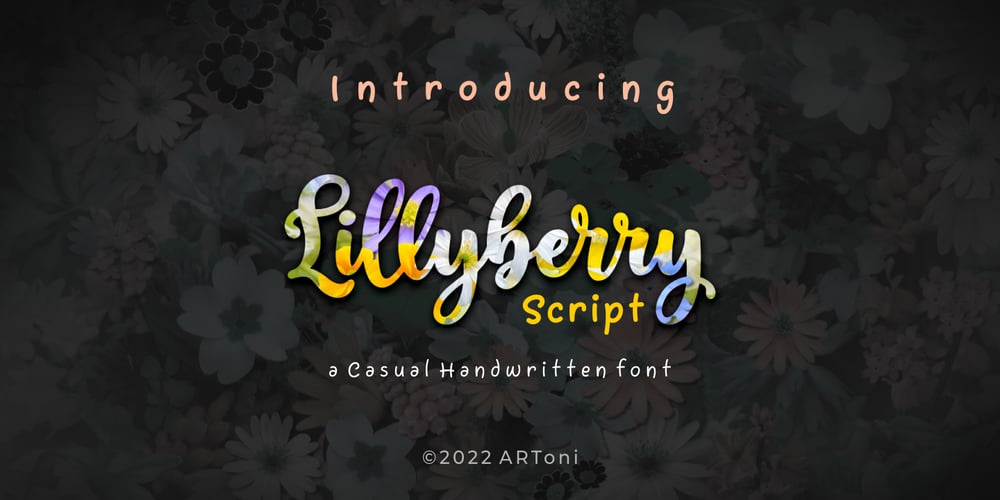
Lillyberry Font Family was designed by Anthonie Van Hayu and published by ARToni. Lillyberry contains 1 styles and family package options. Lillyberry is a round lettered and beautiful script font. It is both dynamic and flexible and fits wide ranges of creations. with a soft and smooth appearance makes it very beautiful. Its distinctive curves make this font very suitable for use in any design project. this font shape is perfect if you want to add ornaments or decorations so that it looks more attractive.